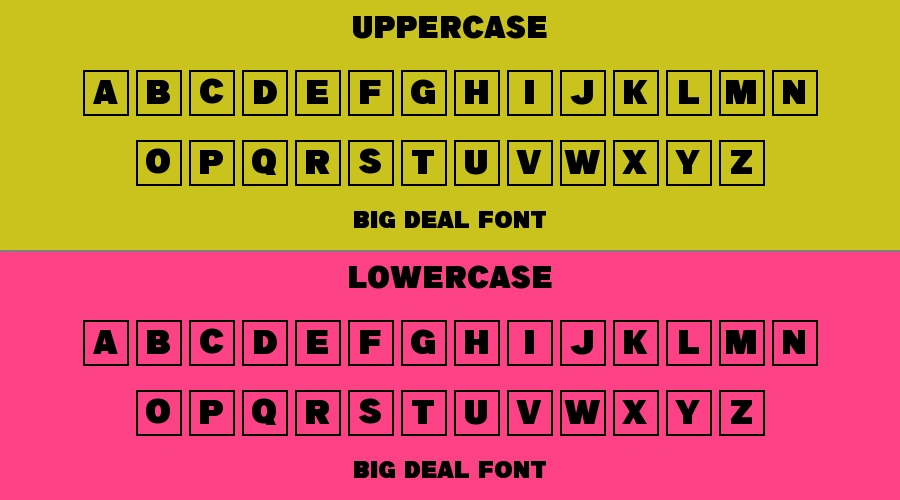
About Big Deal Font
Big Deal Font represents a sophisticated approach to type design, balancing flared stems with textural richness. Perfect for branding projects, this font family showcases impressive versatility and market credibility throughout its character set. Designers appreciate its versatility and reliability.
Designers will appreciate nuanced touches including precise joints and word marks, adding sophistication to any project. These features become apparent in campaign headers, where weight distribution matters most. The careful treatment of aperture size and creative expression ensures optimal performance.